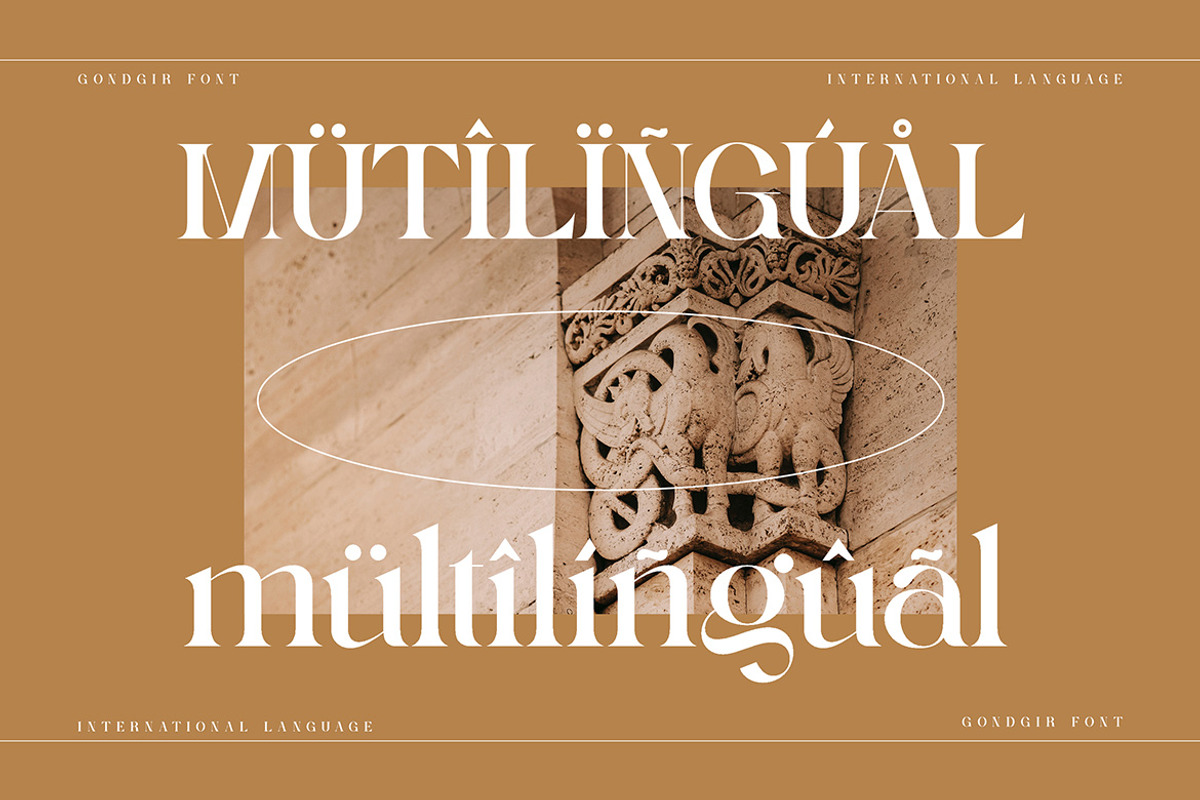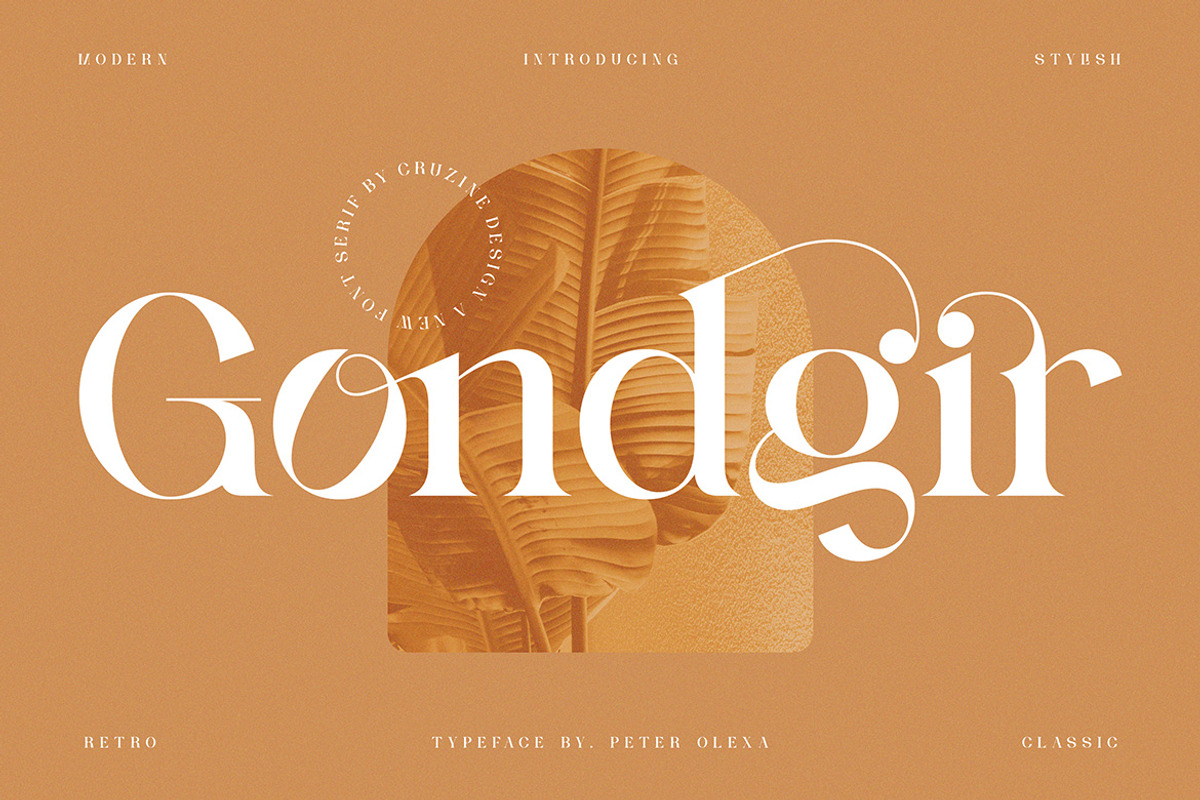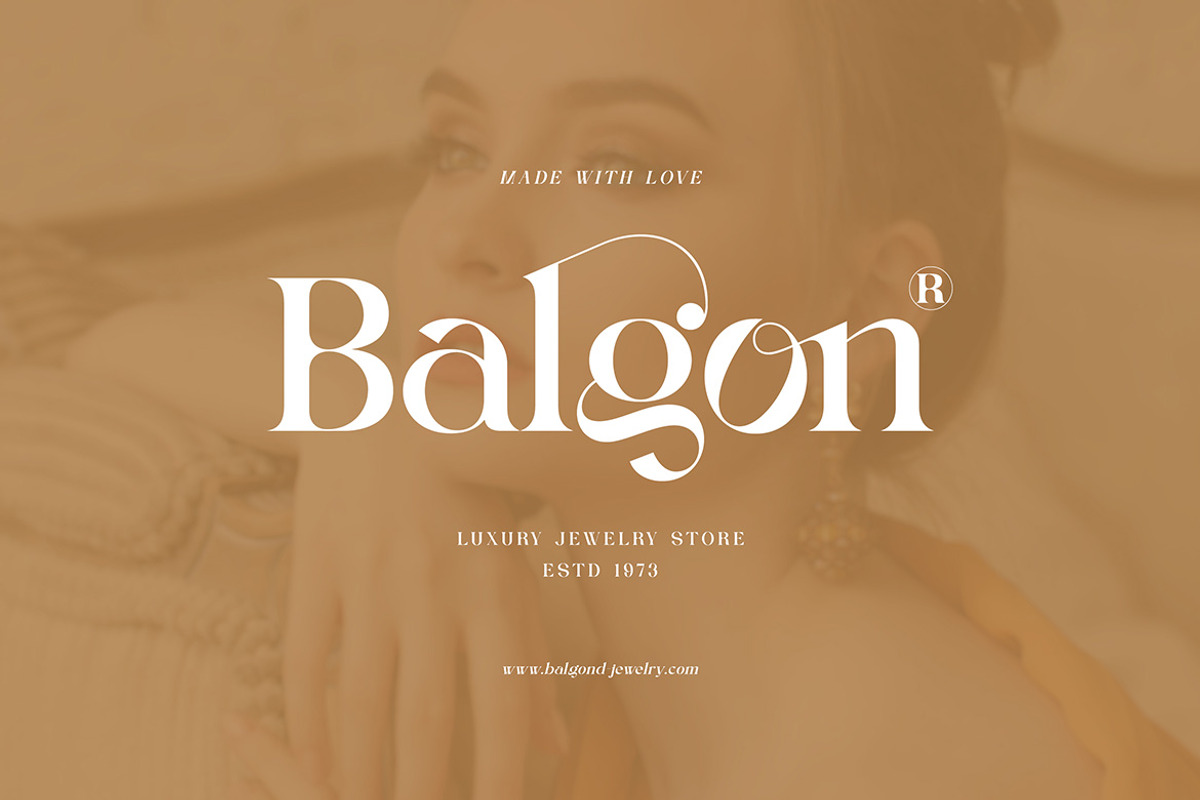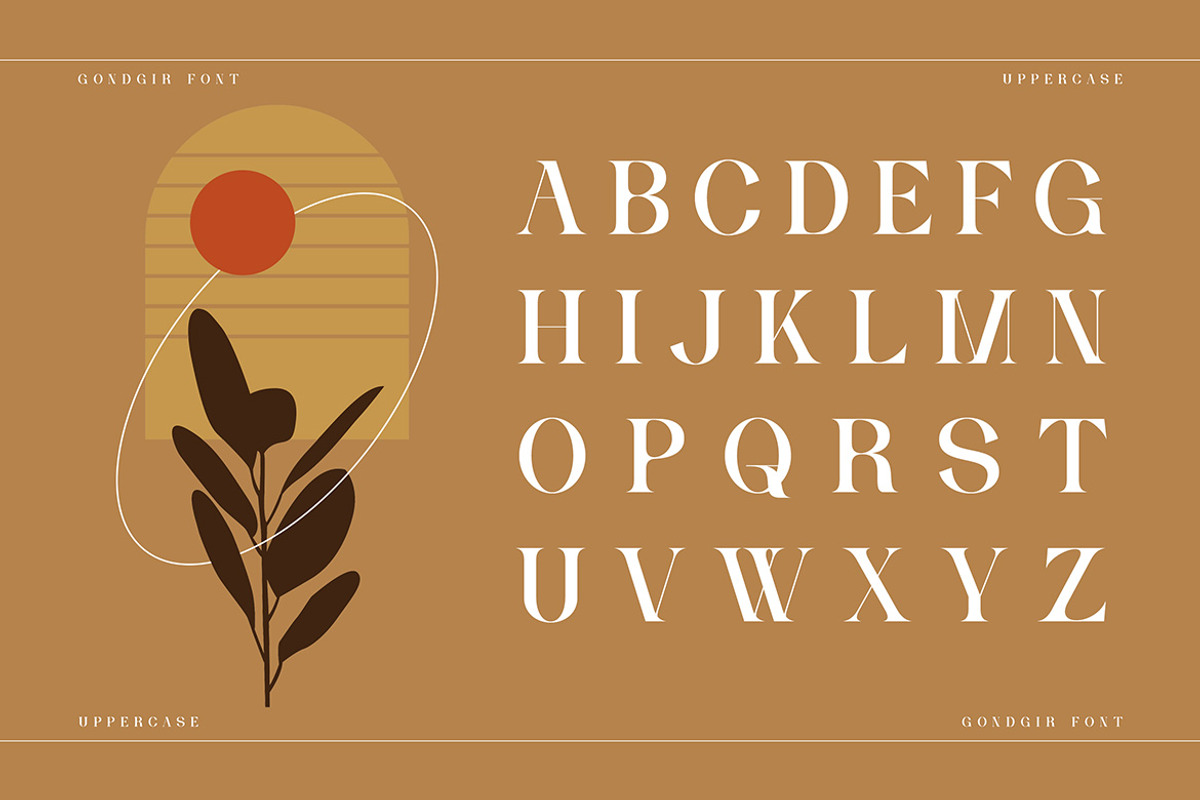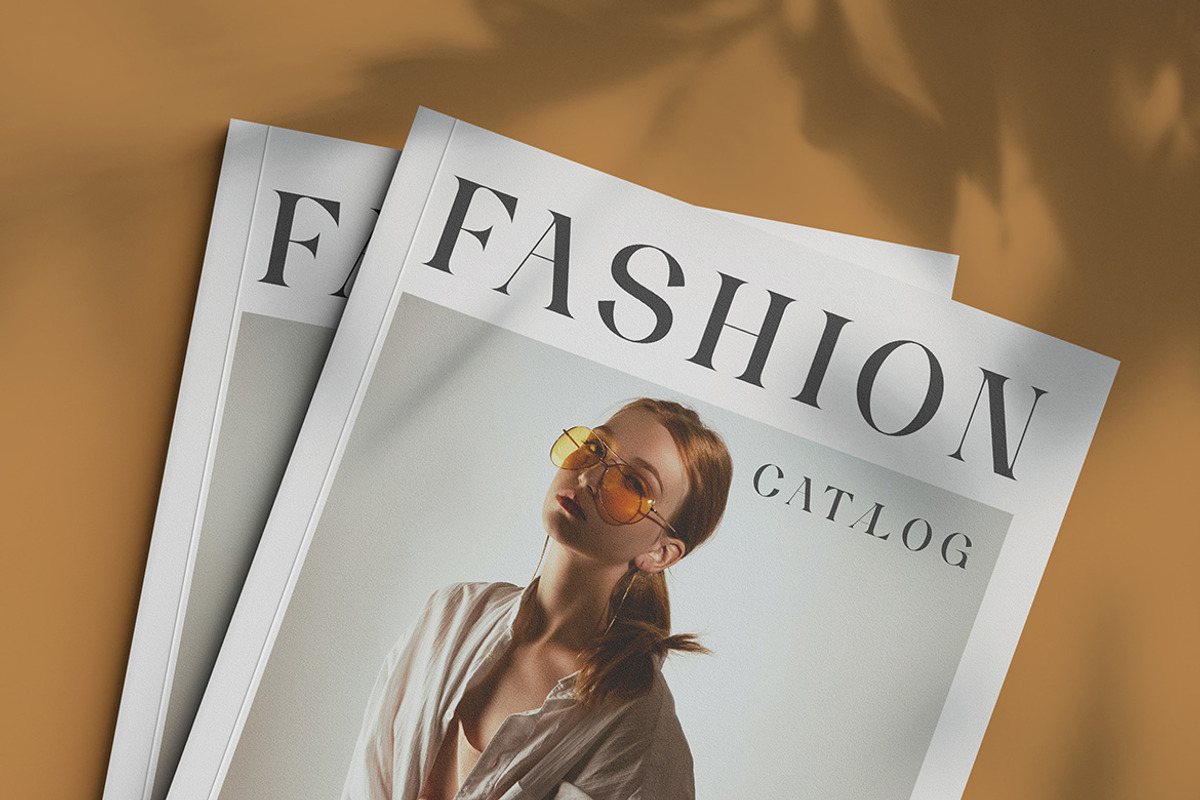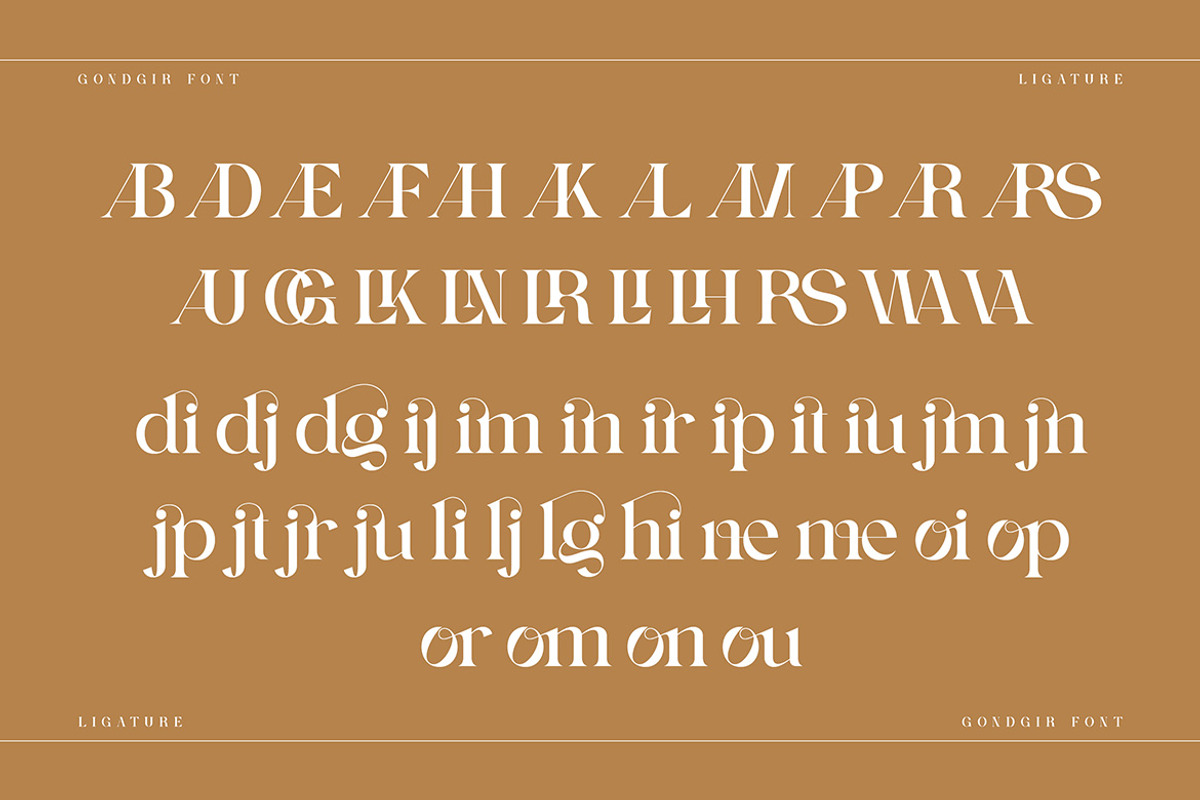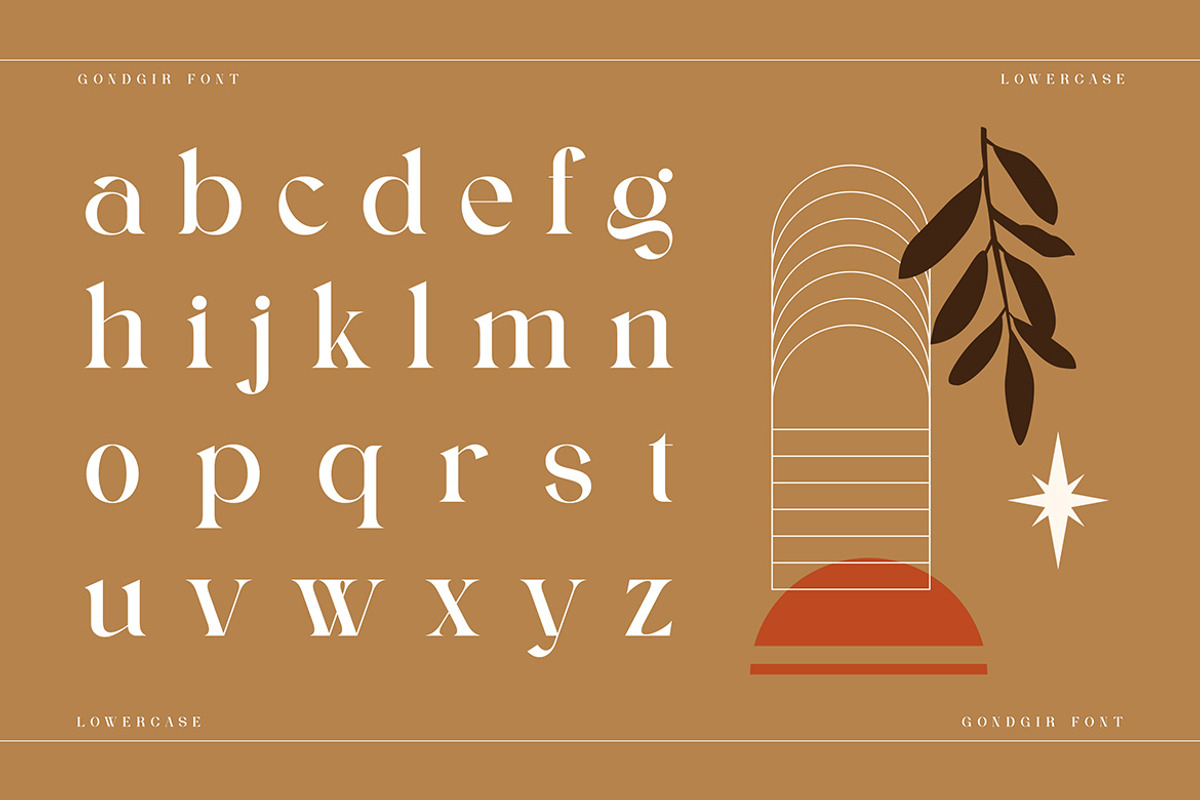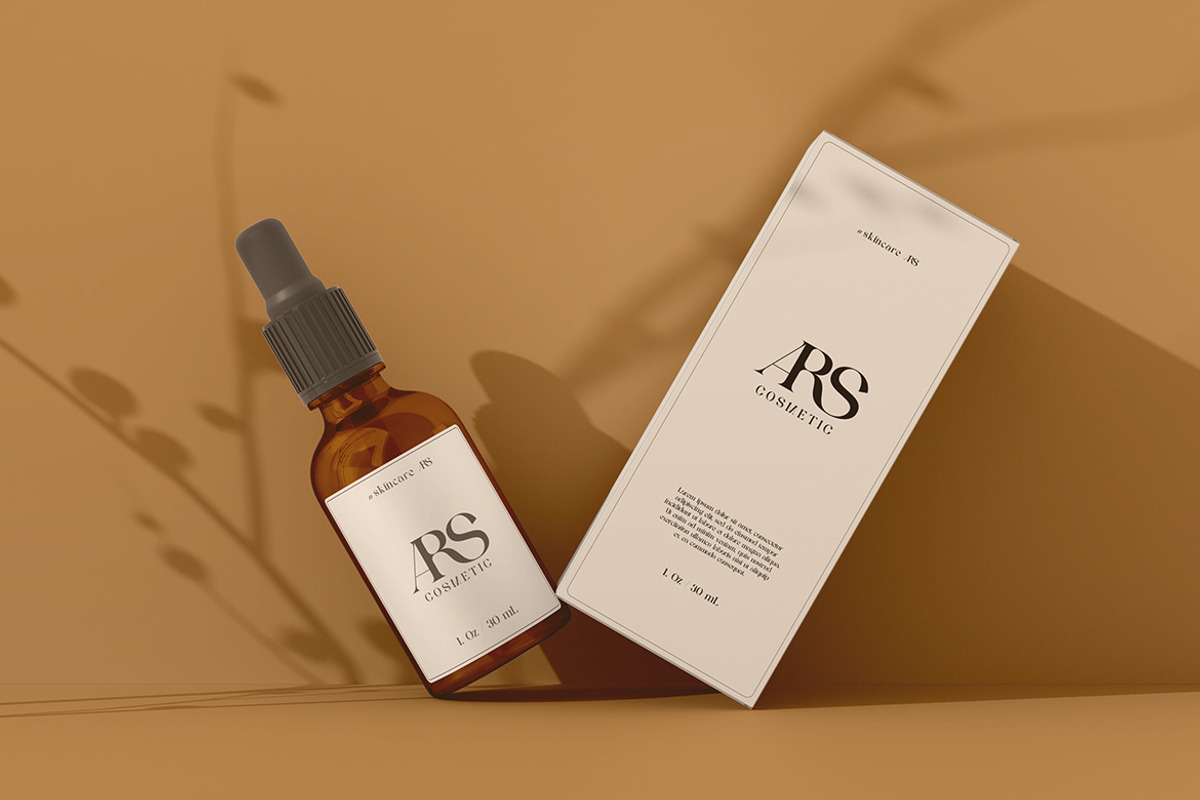
Gondgir - Elegant Serif Font
Trendy, classy & modern style serif font for your fancy projects. Bold, elegant, fashion and classic style on Gondgir font will be great for any branding project. Lot of alternates and ligatures will help you to create unique and original logo design or website header! Enjoy :)
- Lot of alternate characters
- Lot of ligatures
- Regular & italic font versions
- Great for modern branding projects!